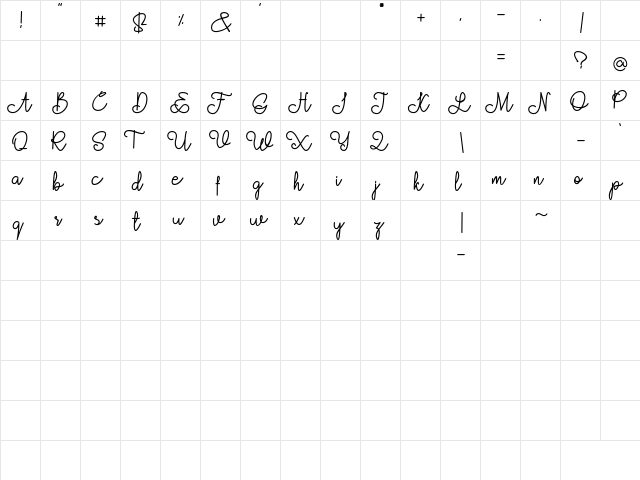
Elfizha Regular
| Designer | Arie Iskandar |
Design Context for Elfizha Typeface
Elfizha is a composed and adaptable typeface that performs quietly and consistently across a wide range of design contexts.